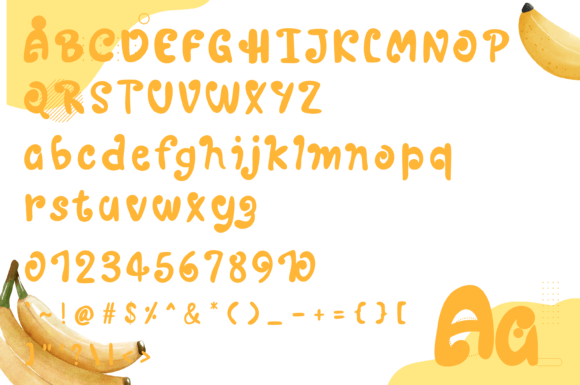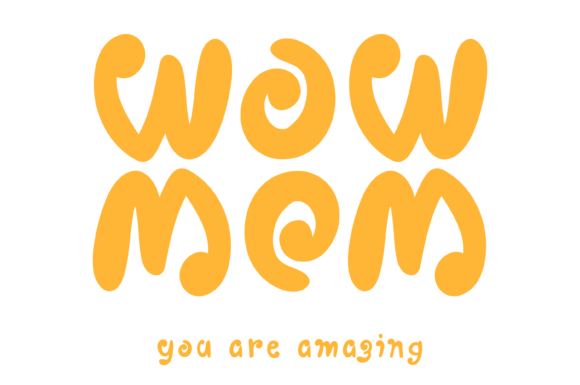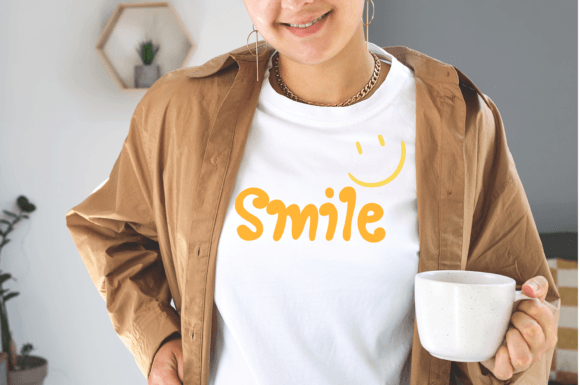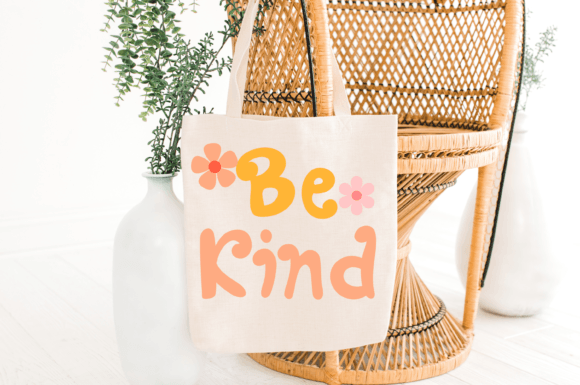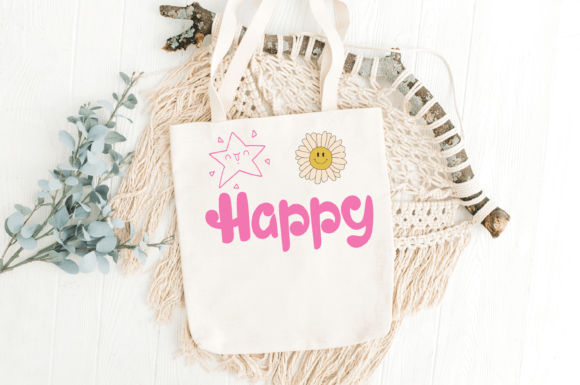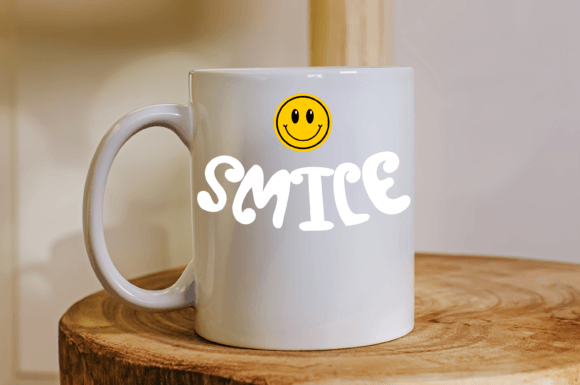
Introduction to Banana Bird Font
You’ve spent hours pouring your heart into a creative project, and just as you’re about to share it with the world, you realize something is missing. That’s when you stumble upon the perfect design element to take your work to the next level – a font that not only complements your style but also elevates your message. For designers, finding the right font can be a game-changer, and that’s exactly where the Banana Bird Font comes in.
With its whimsical and clean design, the Banana Bird Font is a versatile choice that can be paired with a wide range of creative projects. Whether you’re working on a branding campaign, designing a website, or creating a social media graphic, this high-quality font is sure to add a touch of sophistication and personality to your work.
Key Features of Banana Bird Font
- High-quality design resource for creative projects, suitable for logos, branding, and typography
- Comes with a transparent background, making it easy to overlay on images or use as a standalone element
- Customizable size and resolution, with options for scalable vector graphics (SVG) and high-resolution PNG files (up to 300 DPI)
- Unique, playful design featuring a stylized banana bird character, perfect for adding a touch of whimsy to your creative project
- Designed to be easily legible and recognizable, even at small sizes, making it ideal for use in various design contexts
Honest Review: Banana Bird Font
I recently had the chance to work with the Banana Bird Font, and I must say it’s a delightful addition to any design project. The font is perfect for creatives looking for a unique and playful touch.
Here’s what works well: ✨ The font is incredibly versatile, suitable for a wide range of creative projects, from kids’ books to advertising campaigns. The characters are well-designed, with a beautiful, cursive feel that’s sure to catch the eye. The font also includes a transparent background, making it easy to use on any background.
Some potential limitations to consider: ⚠️ The font is a bit on the decorative side, which may not be suitable for projects where a more formal tone is needed. Additionally, some of the characters may require additional design tweaks to ensure proper spacing and alignment.
Here are some key features of the Banana Bird Font:
- High-quality design perfect for creative projects
- Perfect for kids’ books, advertising campaigns, and more
How to Use Banana Bird Font
The Banana Bird Font is a high-quality design resource that can be used for various creative projects. It offers a unique and playful style that can add a touch of whimsy to any design. With a transparent background, it’s perfect for creating visually appealing graphics.
To get the most out of the Banana Bird Font, experiment with different font sizes, colors, and combinations. You can also use it in conjunction with other design elements to create a unique and eye-catching look.
The Banana Bird Font is perfect for creating playful and whimsical designs, such as:
- Children’s party invitations
- Food and drink branding
- Illustrations and graphics
- Party decorations and signage
Can I use the Banana Bird Font on a transparent background?
Yes, the Banana Bird Font is designed to work well on transparent backgrounds. The font’s design allows for a clear and crisp appearance, even when layered over other design elements. Simply use the font on a transparent background in your design software, and you’ll achieve a high-quality result.